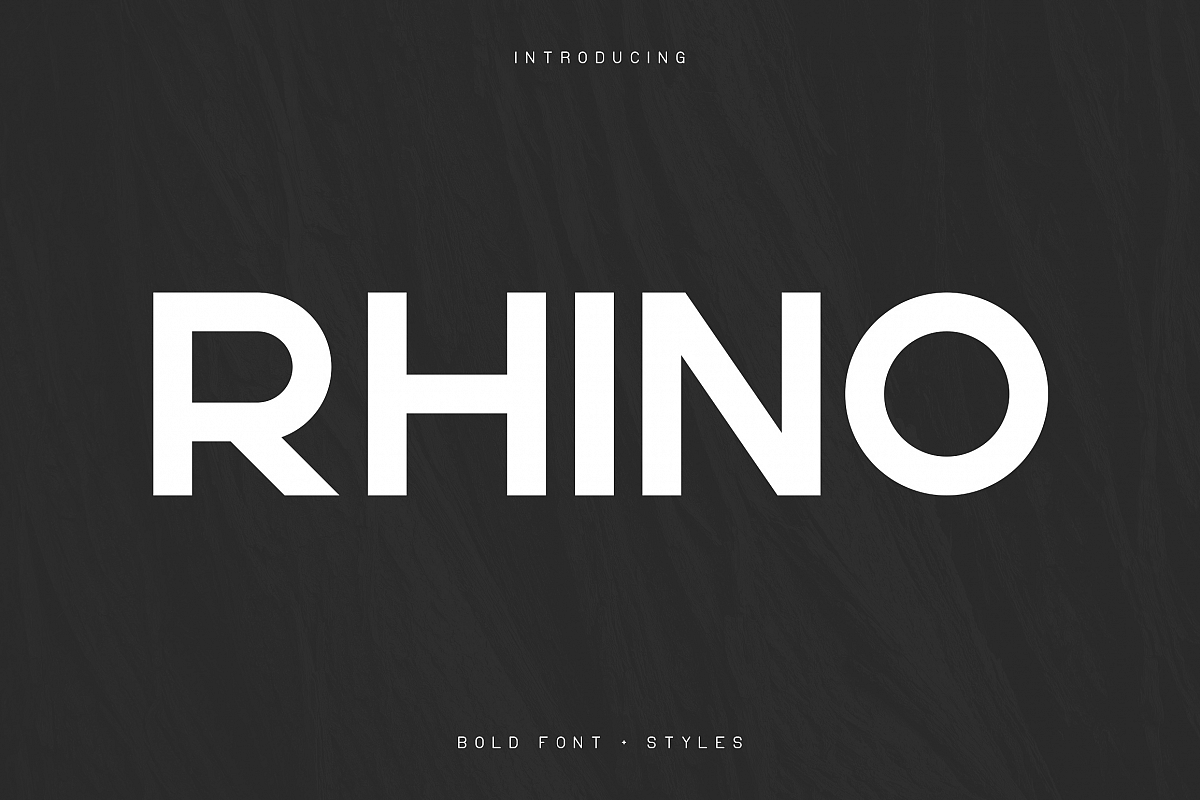
Rhino Bold font Styles
RhinoOutline
RhinoLines
RhinoDots
RhinoRegular
RhinoOutlineBold
RhinoRough
RhinoStriped
Rhino is clean, bold typeface with 7 fonts and multilingual support. It's a very versatile font that works great in large and small sizes.Rhino is perfect for branding projects, home-ware designs, product packaging, magazine headers - or simply as a stylish text overlay to any background image.
• Regular
• Dots
• Lines
• Outline
• Outline Bold
• Rough
• Striped